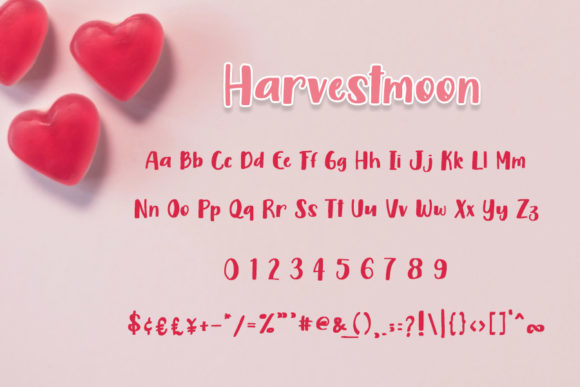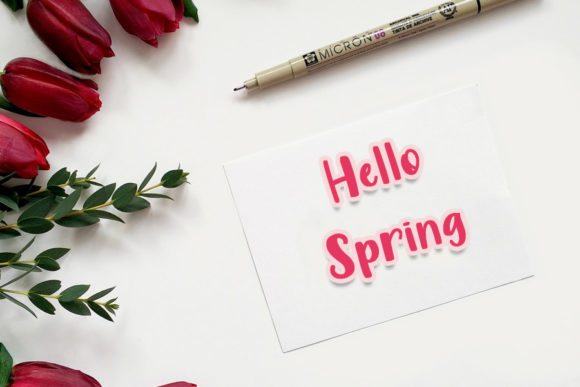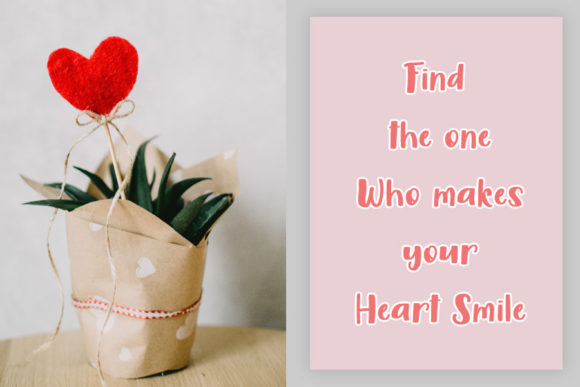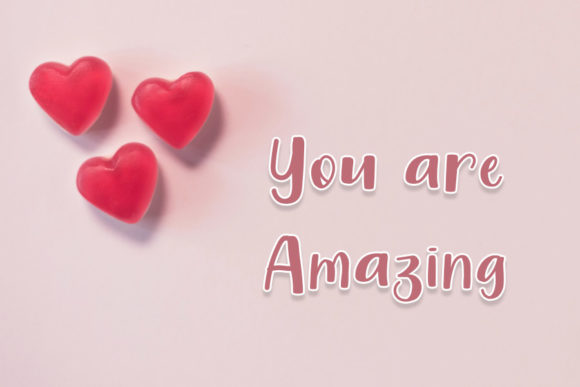
Introducing Harvestmoon Font: Adding a Touch of Whimsy to Your Creative Projects
Are you a designer, crafter, or DIY enthusiast looking for a unique and playful font to elevate your creative projects? Look no further than Harvestmoon Font! This fun and whimsical handwritten font is sure to add a touch of magic to your designs, making them come alive with its distinctive style.
What is Harvestmoon Font?
Harvestmoon Font is a one-of-a-kind, handwritten font that exudes a sense of playfulness and charm. Its unique style is reminiscent of a carefree, artistic approach, making it perfect for projects that require a personal touch. Whether you’re working on a creative endeavor, such as crafting, scrapbooking, or designing, Harvestmoon Font is sure to inspire your imagination and bring your ideas to life.
Key Features of Harvestmoon Font
- Unique and Whimsical Style: Harvestmoon Font boasts a distinctive, handwritten style that sets it apart from other fonts.
- Playful and Artistic: This font is perfect for projects that require a touch of playfulness and creativity.
- Easy to Read: Despite its whimsical nature, Harvestmoon Font remains easy to read, making it suitable for a wide range of applications.
- Versatile: Harvestmoon Font can be used for various creative projects, from crafting and scrapbooking to designing and writing.
How to Use Harvestmoon Font in Your Creative Projects
Adding Harvestmoon Font to your creative projects is easy! Here are a few ideas to get you started:
- Crafting: Use Harvestmoon Font to add a personal touch to your crafting projects, such as card making, journaling, or scrapbooking.
- Designing: Incorporate Harvestmoon Font into your designs, whether you’re creating logos, brochures, or social media graphics.
- Writing: Add a touch of whimsy to your writing projects, such as poetry, short stories, or even blog posts.
Benefits of Using Harvestmoon Font
So, why choose Harvestmoon Font for your creative projects? Here are just a few benefits:
- Stand Out from the Crowd: Harvestmoon Font’s unique style ensures that your projects will stand out from the crowd.
- Add a Personal Touch: This font adds a personal, artistic touch to your projects, making them more relatable and engaging.
- Inspire Creativity: Harvestmoon Font’s playful nature is sure to inspire your creativity and bring new ideas to life.
In conclusion, Harvestmoon Font is a fun and whimsical handwritten font that is sure to add a touch of magic to your creative projects. Its unique style, playfulness, and versatility make it perfect for designers, crafters, and DIY enthusiasts alike. So why not give Harvestmoon Font a try and see how it can bring your ideas to life?
Whether you’re a seasoned designer or a crafty beginner, Harvestmoon Font is a great addition to your creative toolkit. So go ahead, get creative, and let Harvestmoon Font help you make your mark!